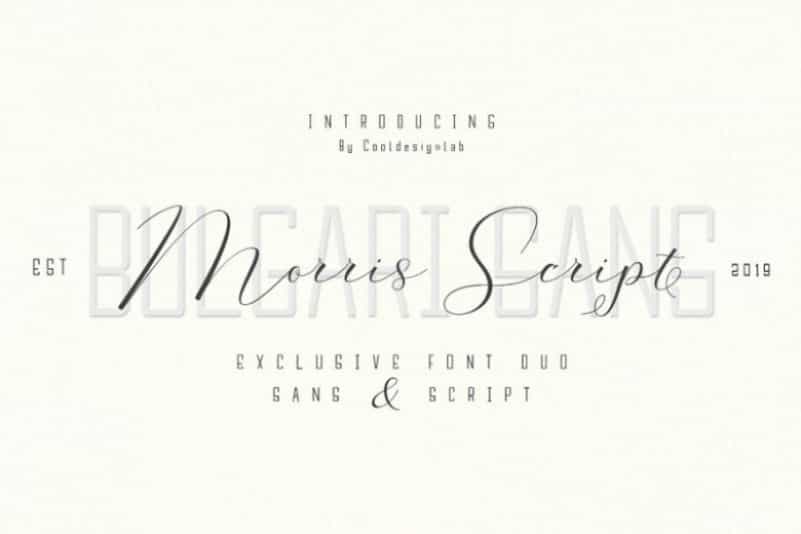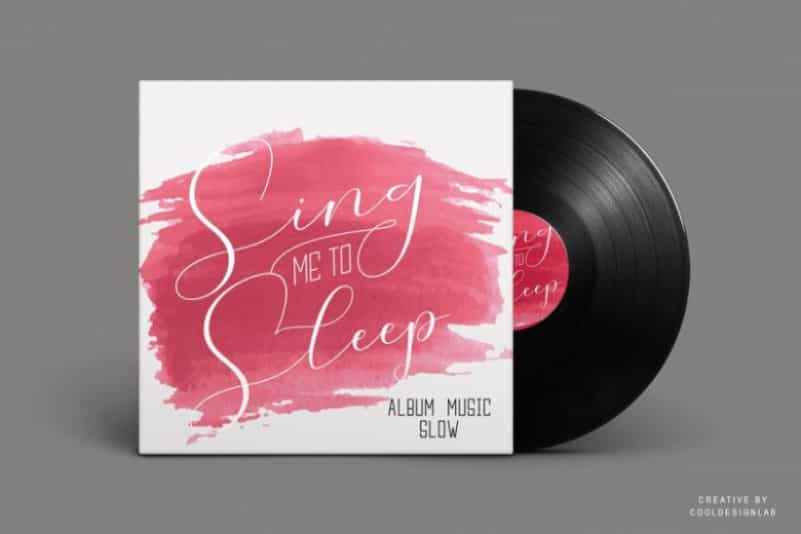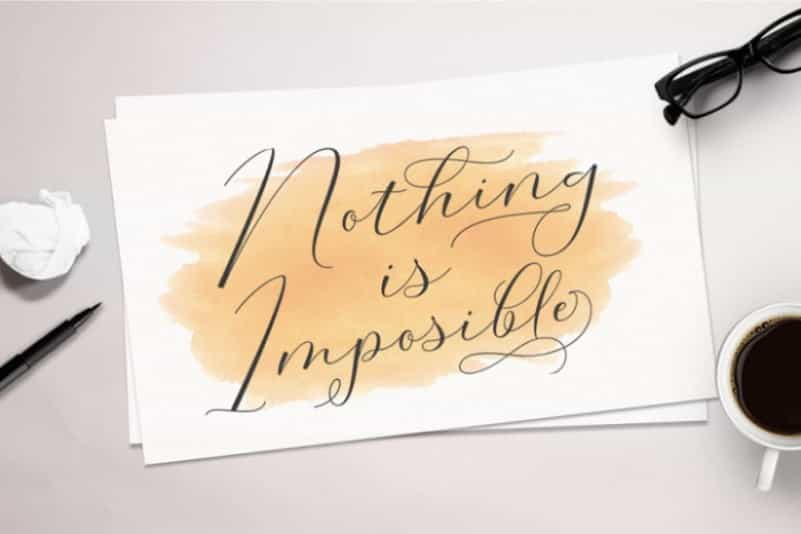
Discover Morris Script Font Duo, part of the Calligraphy collection—a versatile and unique font perfect for adding a personal touch to your projects. Download it for free and enjoy crafting designs with style, from invitations to social media posts. This font is available exclusively for personal use, giving you the freedom to create without limits. Unlock your creativity with Morris Script Font Duo today!
Introducing Morris Font. Morris Script Font Duo with calligraphy style, fancy letters and starting steps!Such a gorgeous typeface to be used on invitation cards, greeting cards, as well as branding materials. Get the Bonus Bulgari Sans (Regular, Slant, Bold) .